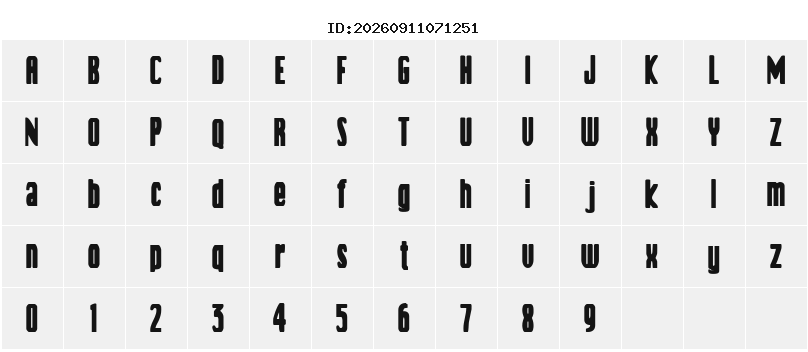
• Font Name: Vanilla Boys
Vanilla Boys.ttf is a modern, elegant sans-serif font designed for ultimate readability and visual harmony. Perfect for branding, headlines, web design, and print materials.